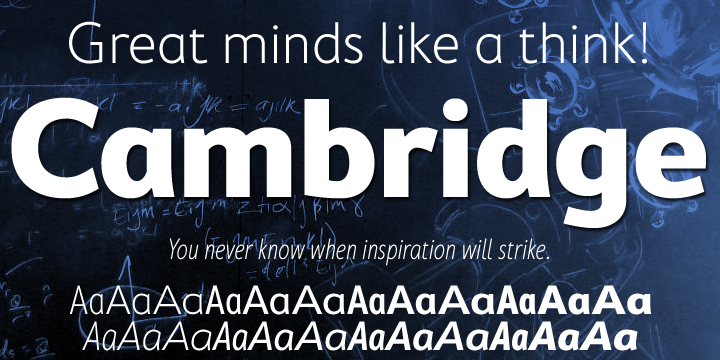
The Cambridge Font is perfect for prestigious university branding, academic conference materials, scholarly publication headers, elite boarding school signage, intellectual society logos, educational consultancy presentations, traditional library systems, academic achievement certificates, and distinguished educational institution marketing.
What makes the Cambridge Font so exciting is its distinguished academic elegance that instantly communicates scholarly prestige and intellectual excellence. This sophisticated typeface embodies the centuries-old tradition of educational excellence and academic distinction that defines world-class universities, creating an immediate impression of scholarly authority and institutional prestige. The font's Cambridge character communicates the intellectual rigor and academic excellence that prestigious educational businesses need to attract discerning students and faculty who seek the highest standards of scholarly achievement and educational distinction.
The Cambridge Font family includes Regular weight featuring complete uppercase and lowercase character sets, comprehensive numerical collections, essential punctuation marks, and academic symbols that maintain the scholarly aesthetic throughout your prestigious educational and intellectual excellence design projects.
Elite educational institutions and academic organizations consistently select Cambridge Font Free Download for projects that require authentic academic prestige and distinguished scholarly communication. This exceptional typeface excels in environments where establishing educational excellence and academic authority is crucial for attracting high-achieving students and distinguished faculty who value intellectual rigor and scholarly tradition. The font's Cambridge character helps communicate the prestige and academic excellence that elite educational audiences expect from established prestigious institutions and distinguished academic service providers.
The distinctive qualities of Cambridge Font reflect the venerable traditions of academic excellence where intellectual achievement, scholarly distinction, and educational prestige create transformative learning experiences and lasting intellectual development. Each character demonstrates the meticulous attention to scholarly detail and academic precision that characterizes world-class educational institutions and distinguished academic enterprises. The font's proportions and spacing create perfect balance between academic authority and intellectual accessibility that modern prestigious educational businesses require for effective scholarly communication and academic excellence positioning.
Contemporary elite educational enterprises appreciate how Cambridge Font communicates academic authenticity and scholarly distinction. Whether designing materials for prestigious universities, creating branding for elite educational consultancies, or developing marketing for distinguished academic programs, this font delivers the authoritative character that distinguishes genuine academic excellence from commercial education providers. The typeface works exceptionally well for organizations emphasizing intellectual rigor, scholarly achievement, and the prestigious appeal of authentic academic excellence and educational distinction.
The versatility of Cambridge Font extends across multiple academic applications and prestigious educational marketing initiatives. Ivy League universities utilize its distinguished character for institutional communications and academic excellence materials. Elite preparatory schools choose it to communicate their commitment to scholarly tradition and academic achievement standards. Distinguished academic publishers rely on its authoritative appearance to attract scholars seeking prestigious publication opportunities and intellectual recognition.
Digital academic platforms benefit from Cambridge Font's optimized performance across various prestigious educational applications and scholarly communication channels. The font maintains its Cambridge character whether displayed on university websites, mobile academic apps, or high-resolution scholarly presentations. This technical reliability ensures consistent brand presentation across all prestigious academic communication platforms and educational excellence engagement scenarios.
The psychological impact of Cambridge Font resonates with audiences who value academic prestige and seek educational experiences that represent the pinnacle of scholarly achievement and intellectual excellence. The typeface serves as a visual symbol of educational distinction and academic prestige that helps elite educational businesses build lasting relationships with high-achieving students and distinguished faculty who appreciate scholarly tradition and intellectual excellence. This connection to academic prestige and educational distinction makes it invaluable for establishing credible elite educational brand identities.
Elite educational marketing specialists and academic design professionals recognize Cambridge Font as an essential tool for authentic prestigious branding. The font captures the essence of academic excellence while making scholarly distinction accessible to contemporary educational businesses who want to communicate their commitment to intellectual rigor, academic achievement, and the distinguished appeal of genuine educational excellence in today's competitive elite education marketplace.